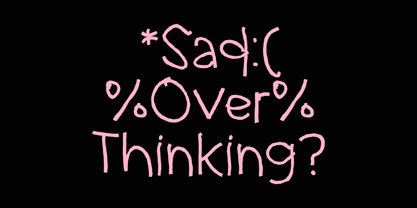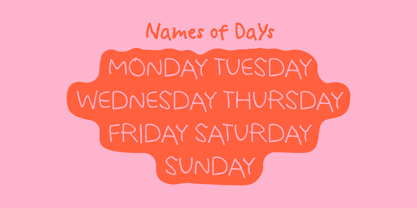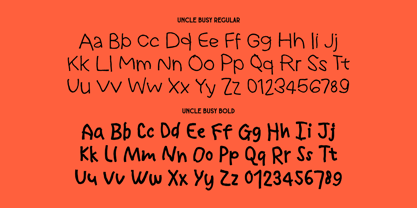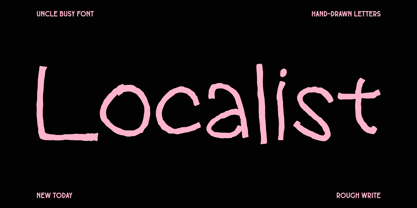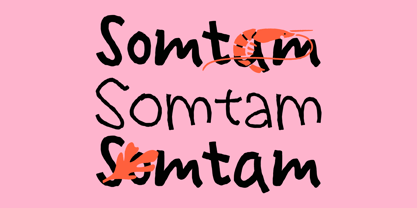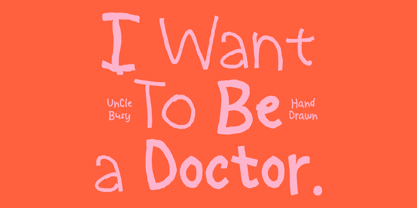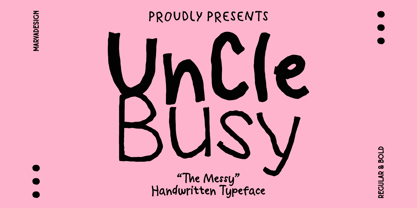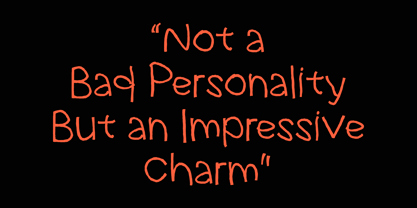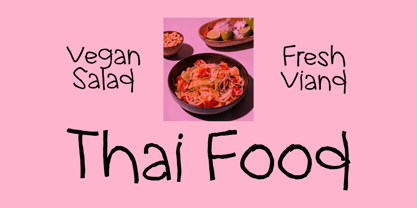
Uncle Busy
by Marvadesign
The Uncle Busy Font Family was designed by Febrie Setiawan and published by Marvadesign. Uncle Busy contains 2 styles and family package options. More about this family
Uncle Busy is a playful, messy handwritten typeface that captures the spontaneous charm of natural hand-drawn lettering. Its irregular strokes, uneven curves, and slightly inconsistent proportions give it an authentic, human touch imperfect in a way that feels warm, expressive, and full of personality. The letterforms feature rounded edges with a rough, organic texture, mimicking the look of marker or brush pen writing. Available in both Regular and Bold styles, the font maintains its casual character while offering flexibility for different visual weights and emphasis. Uppercase and lowercase letters are highly legible yet intentionally unpolished, while the numerals follow the same quirky rhythm, making the overall typeface cohesive and lively. Uncle Busy works beautifully for creative projects such as posters, children’s books, food branding, social media graphics, quotes, packaging, and playful editorial layouts.
Designers: Febrie Setiawan
Foundry: Marvadesign